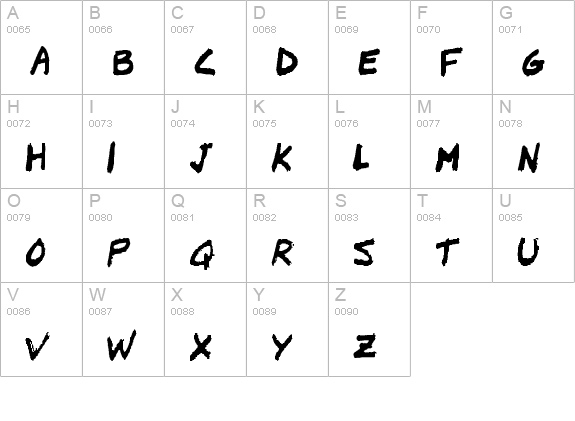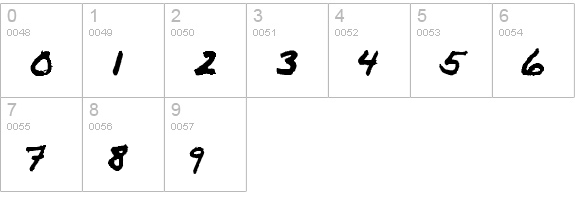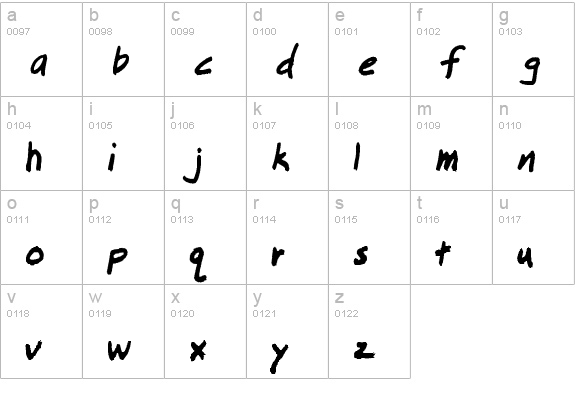
Introducing the Lousy font - a quirky and eccentric typeface that brings a touch of playful charm to your design projects. With its uneven lines and whimsical characters, Lousy font adds a unique and fun element to any creative endeavor. This font is perfect for projects that require a lighthearted and casual vibe, such as greeting cards, posters, and social media graphics. Whether you're looking to add a touch of whimsy to your designs or create a standout headline, Lousy font is sure to make a statement. The best part? Lousy font is available for free download at FontsMarket.com, making it accessible to designers of all levels. Don't miss out on this delightful font that will bring a dose of fun to your next project!